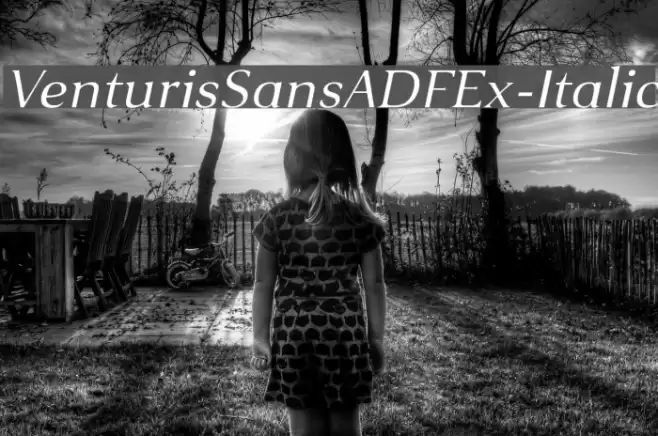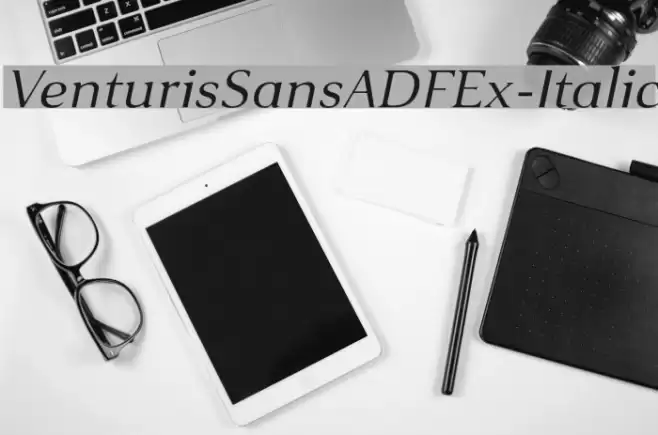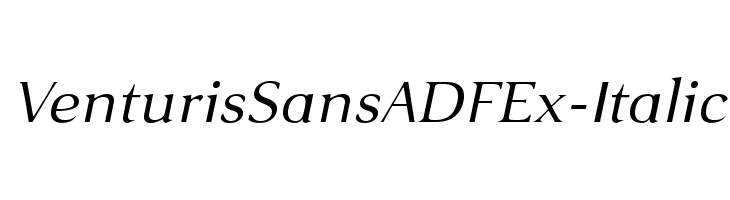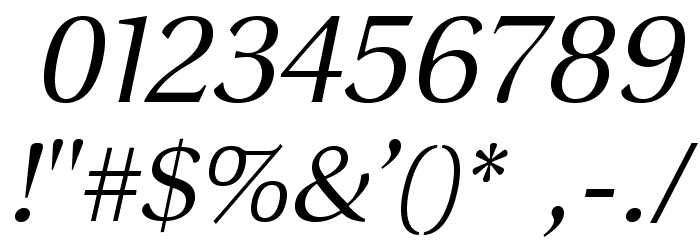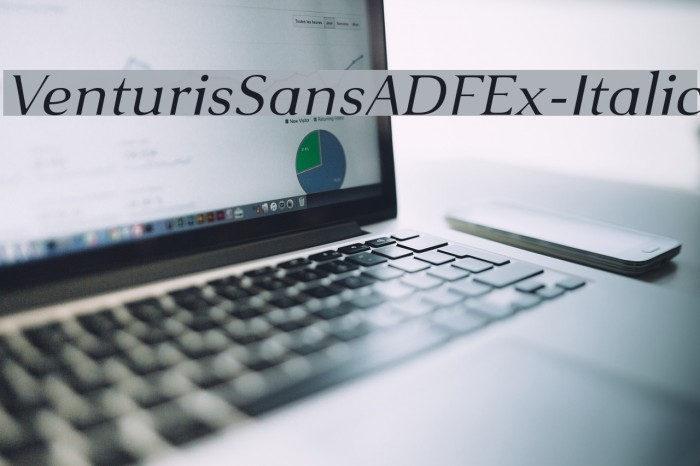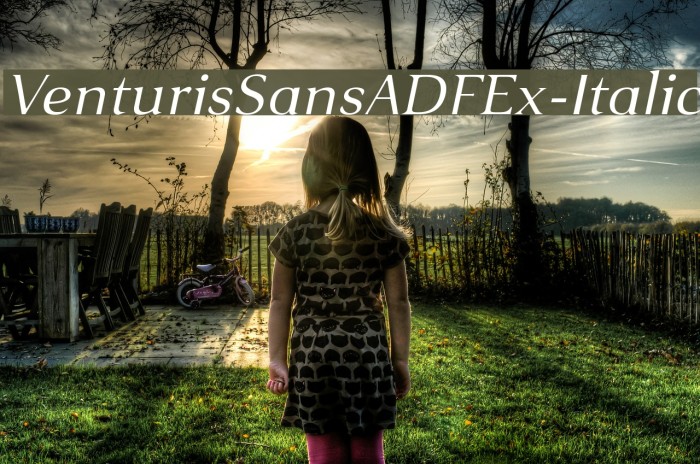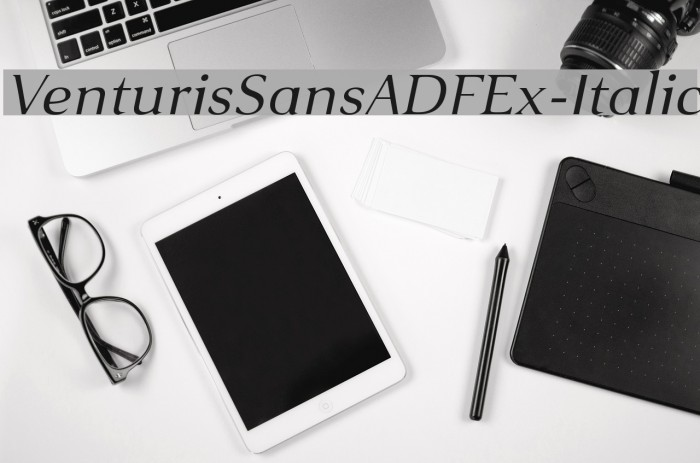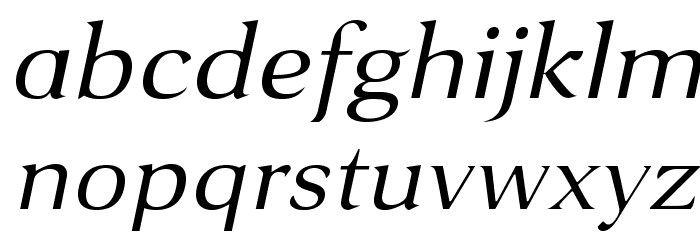
VenturisSansADFEx-Italic Font
VenturisSansADFEx-Italic Description
This font exhibits a refined and elegant style with a slight slant, characteristic of italic typefaces. The letters are well-proportioned, offering a harmonious balance between curves and straight lines. The uppercase letters maintain a classic form, while the lowercase letters are slightly more rounded, providing a softer appearance. The numerals are clear and distinct, ensuring readability. Special characters are designed with the same attention to detail, making them fit seamlessly with the rest of the typeface. Overall, this font combines traditional elegance with modern readability, making it suitable for a variety of applications.
An elegant italic font with balanced proportions and classic styling from Uncategorized fonts.
- Proposed Projects: Ideal for formal invitations, elegant branding, editorial design, and sophisticated advertising.
- Overall Style: Classic